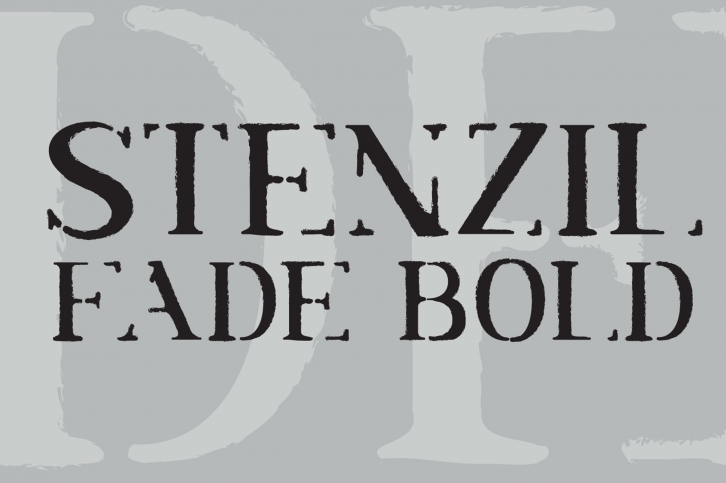
Stenzil Fade Bold is a bold and modern looking display font. Every letter has a unique and distinct touch, which will make your design come alive. This font is ideal for packaging, silkscreen, web designs, business cards, or pretty much anything else that requires a cool touch.